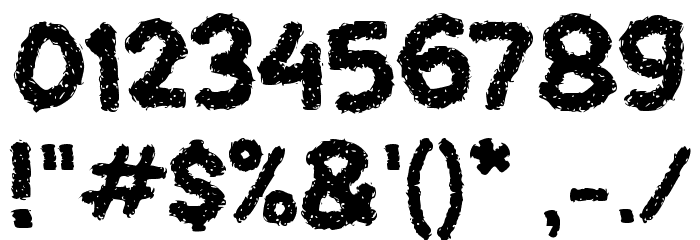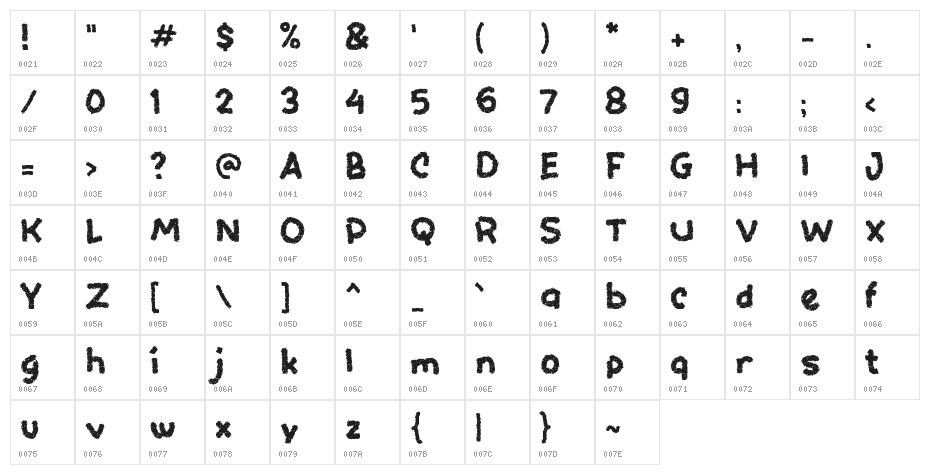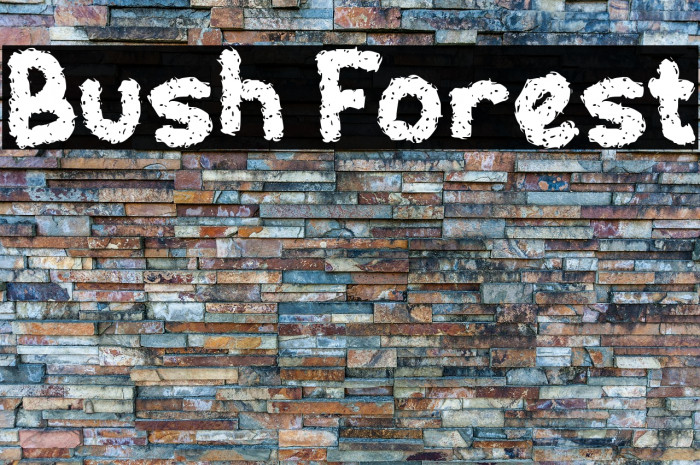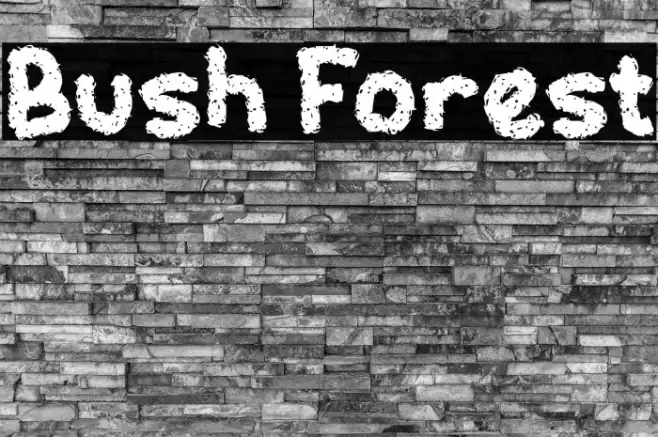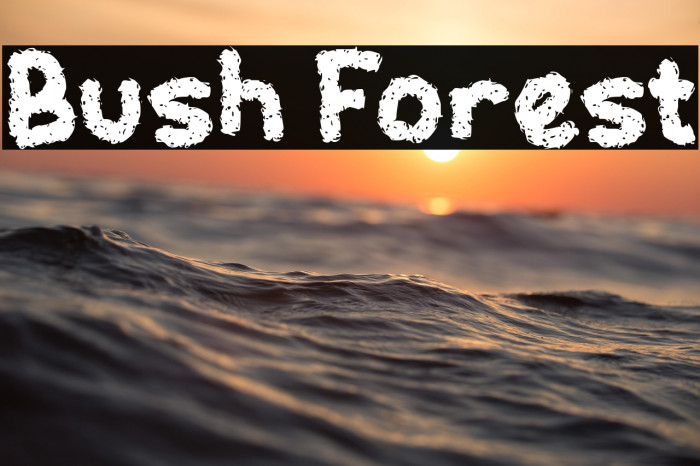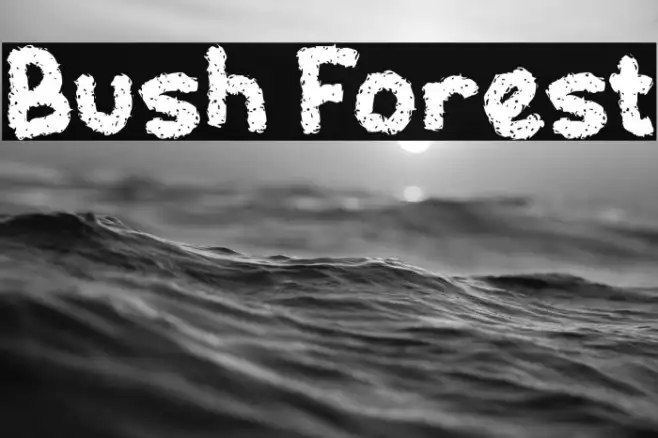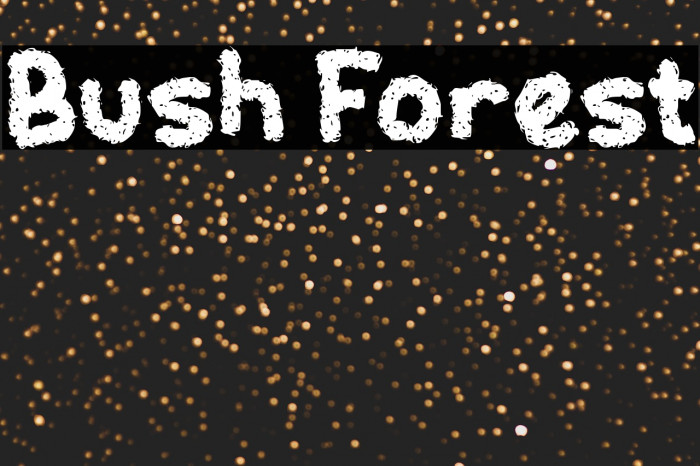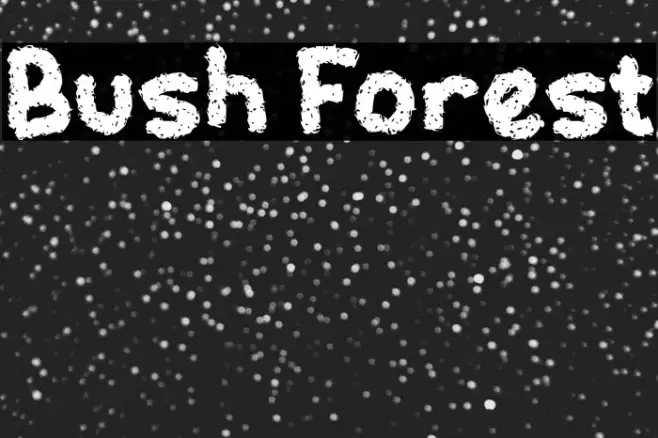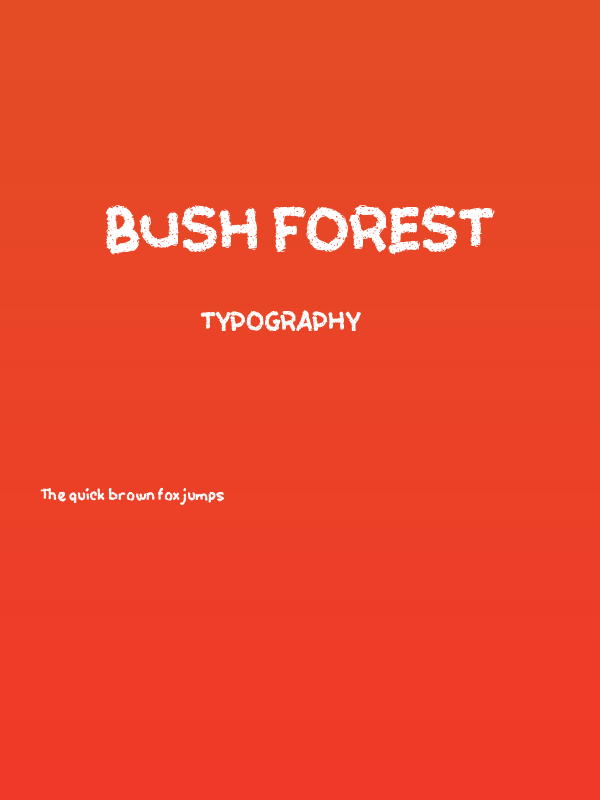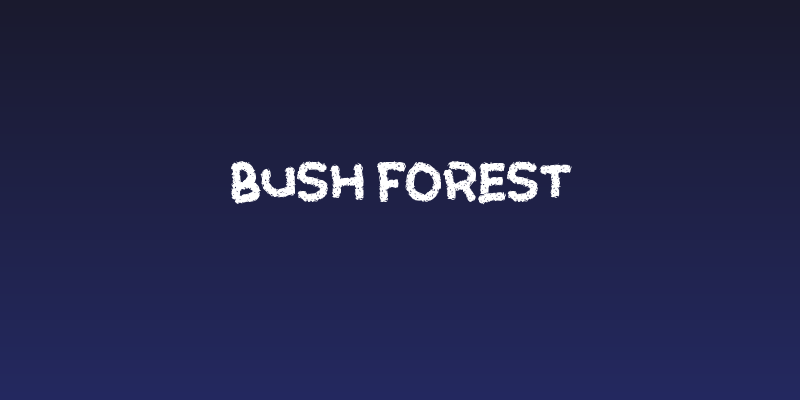
Bush Forest Font
Bush Forest Description
This font features a rugged, textured appearance reminiscent of natural elements like bark or foliage. The characters are bold and have an irregular, organic texture that gives them a hand-crafted feel. The uppercase and lowercase letters maintain a consistent style, with rounded edges and a playful, informal look. Numbers and special characters follow the same design, ensuring a cohesive appearance across all glyphs. The font's unique texture makes it stand out, ideal for projects that require a natural or rustic aesthetic.
| Proposed Projects | Ideal for nature-themed branding, eco-friendly product packaging, outdoor event posters, or any project seeking a rustic, natural vibe. |